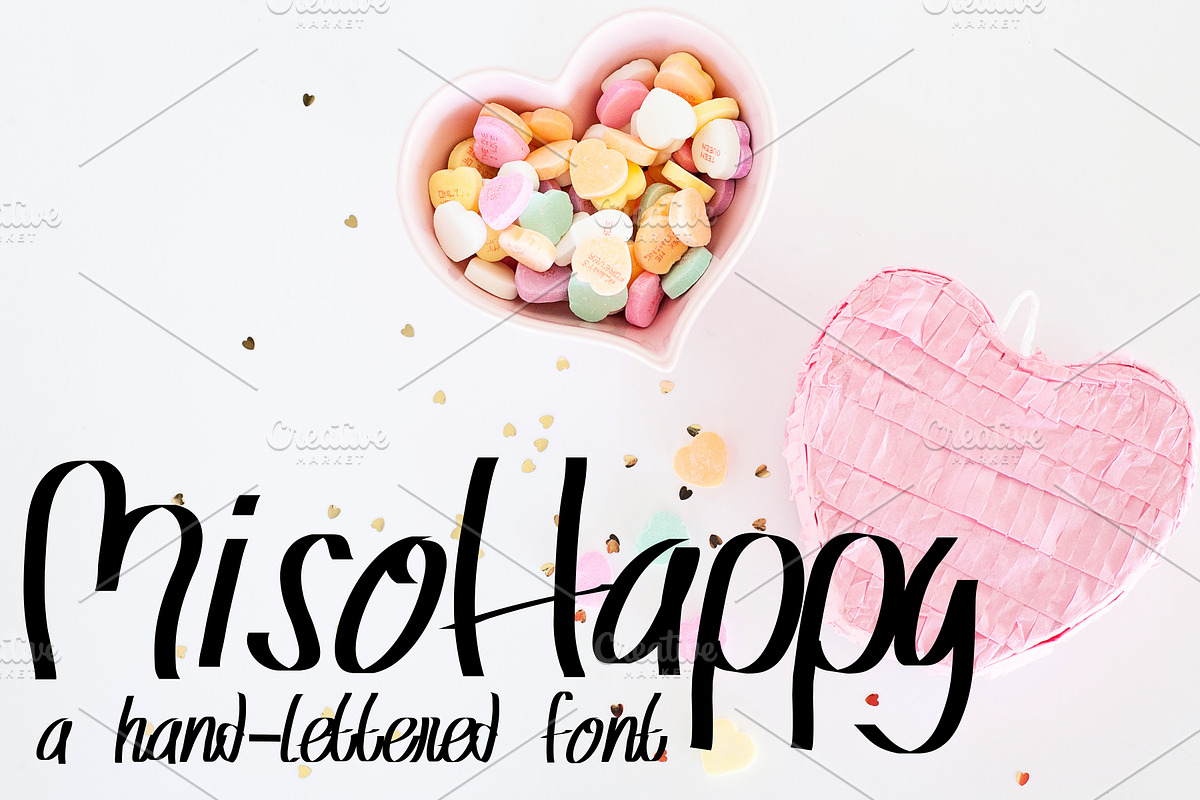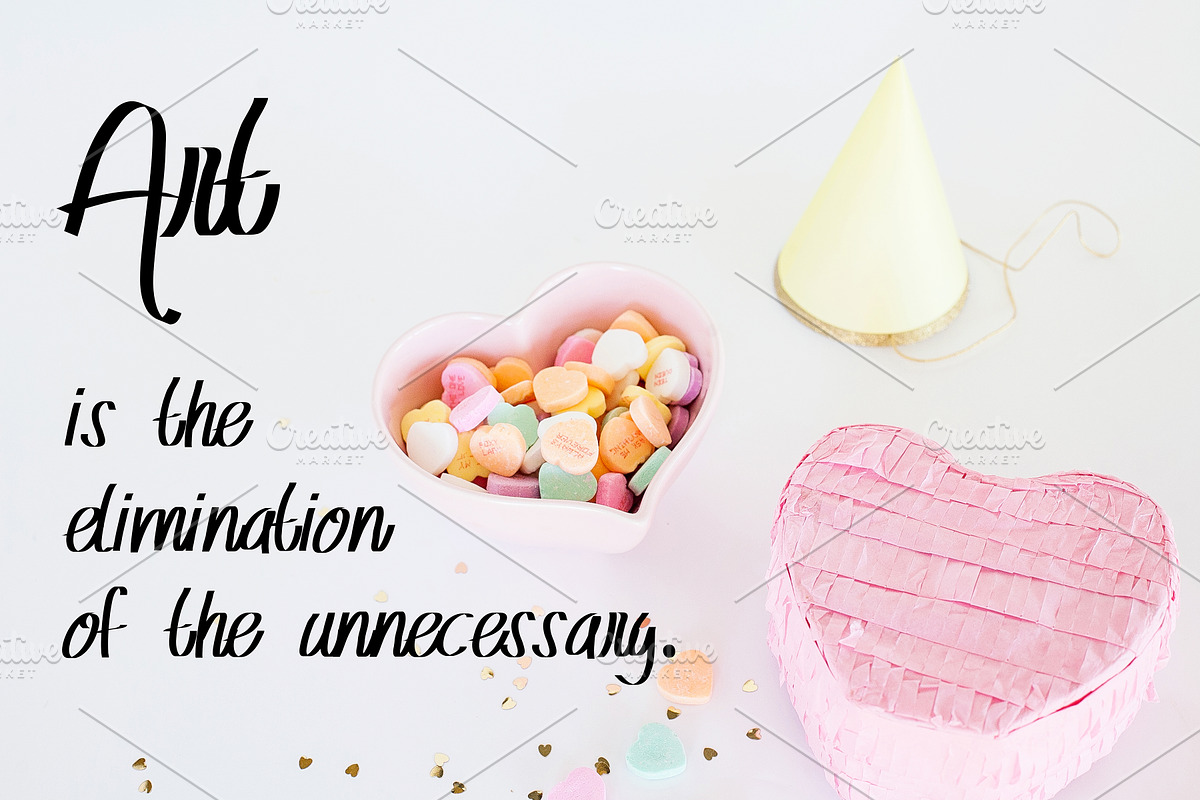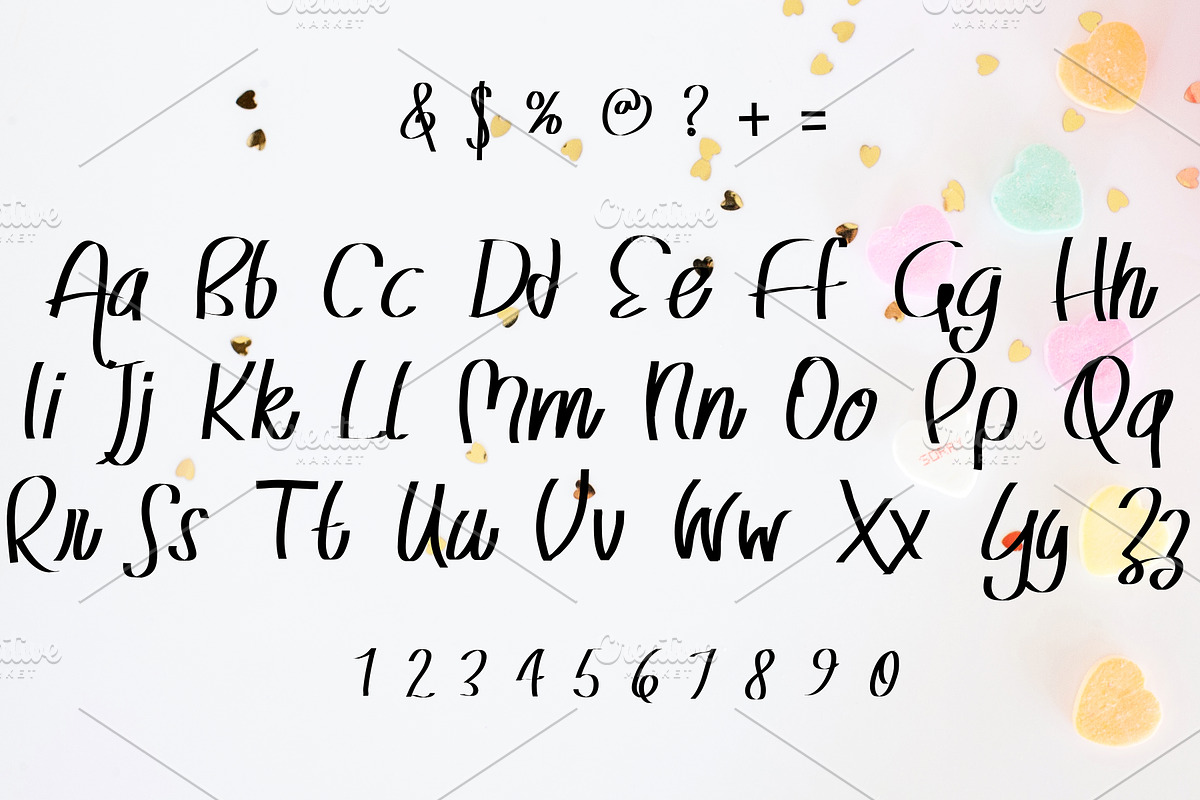
MISO HAPPY Hand Lettered Font
MISO HAPPY Hand Lettered Font by Rhonna Designs is a font selected for branding, posters, packaging, typography.
Why MISO HAPPY Hand Lettered Font is worth a look
MISO HAPPY Hand Lettered Font by Rhonna Designs fits naturally into Branding, posters, packaging, typography.